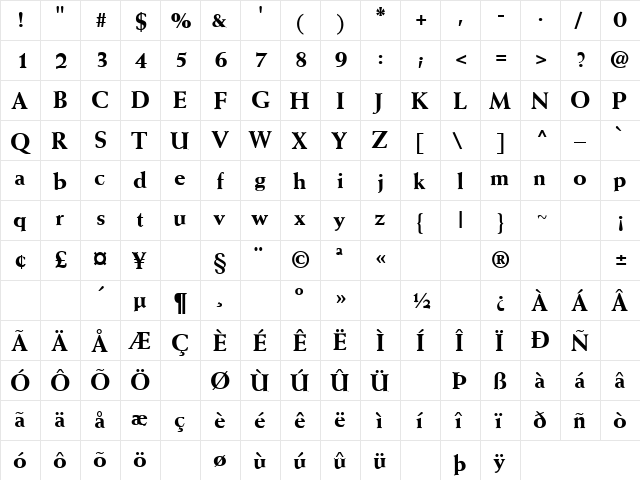
Spaced 2 Regular
Spaced 2 takes a measured approach to typography — its balanced proportions and neutral character make it a reliable workhorse for both digital and print work.